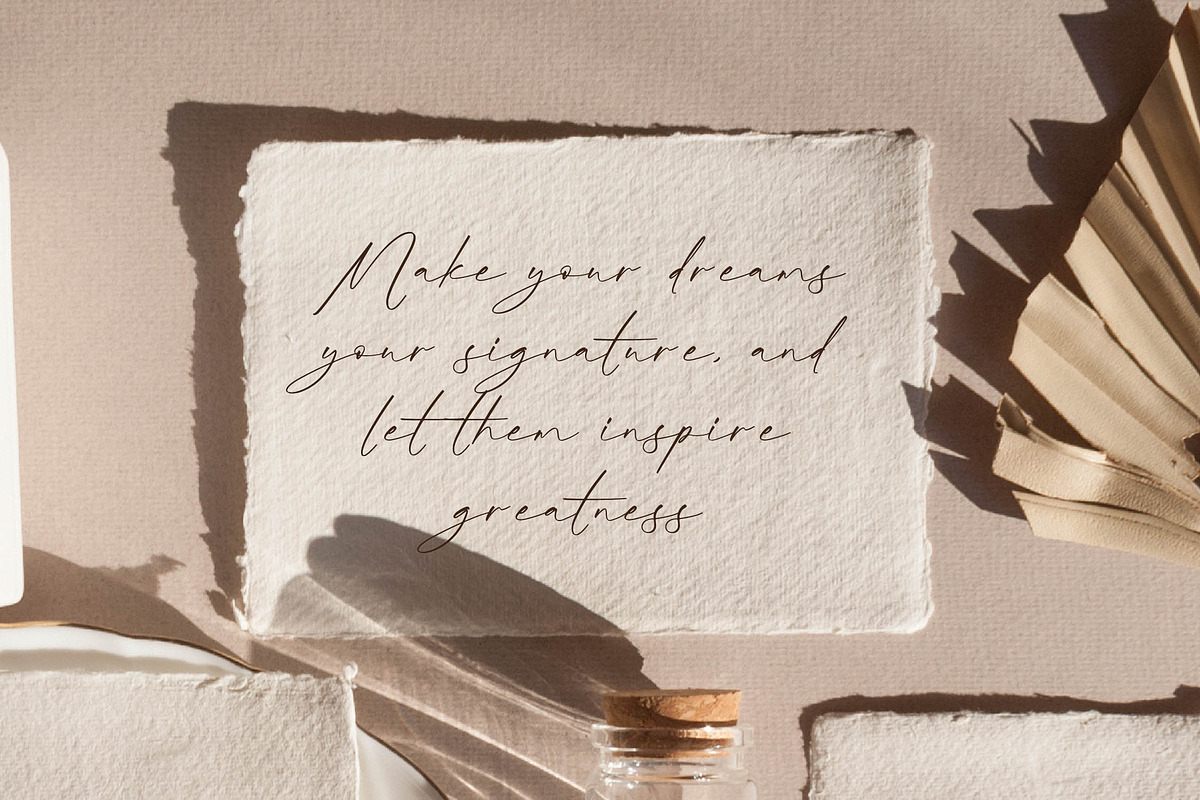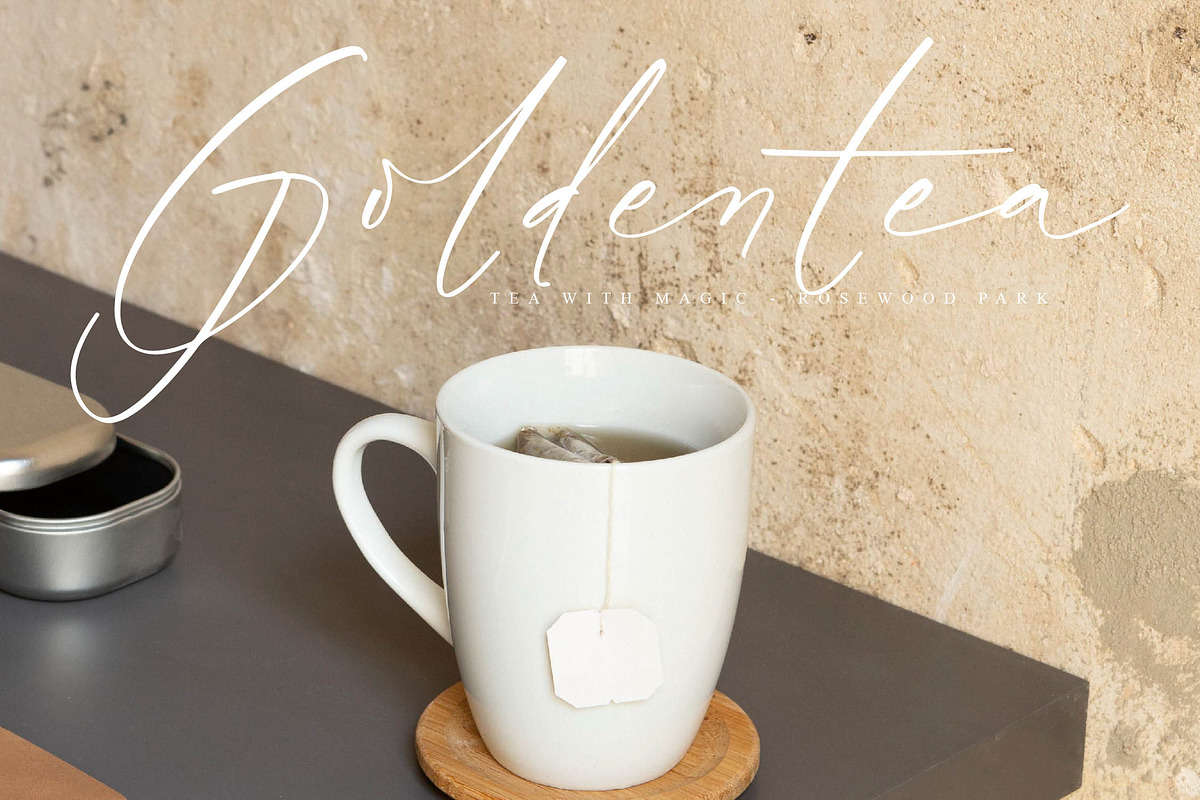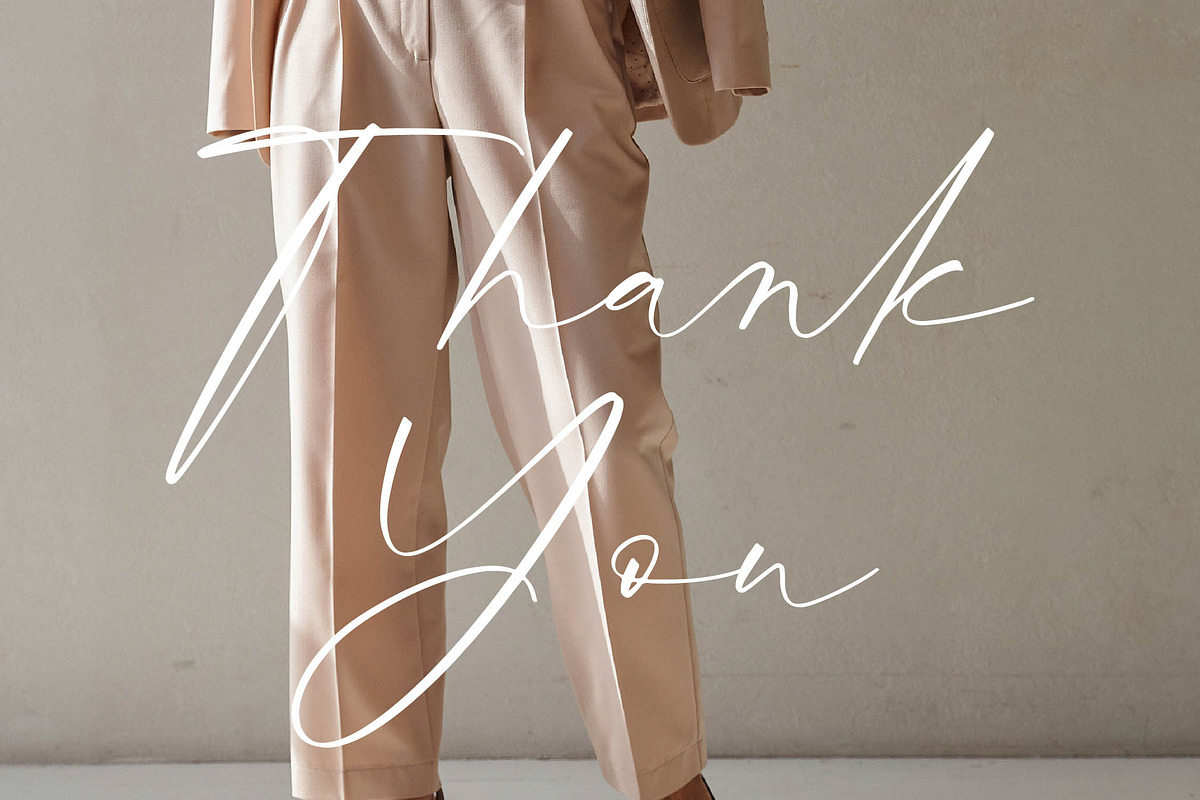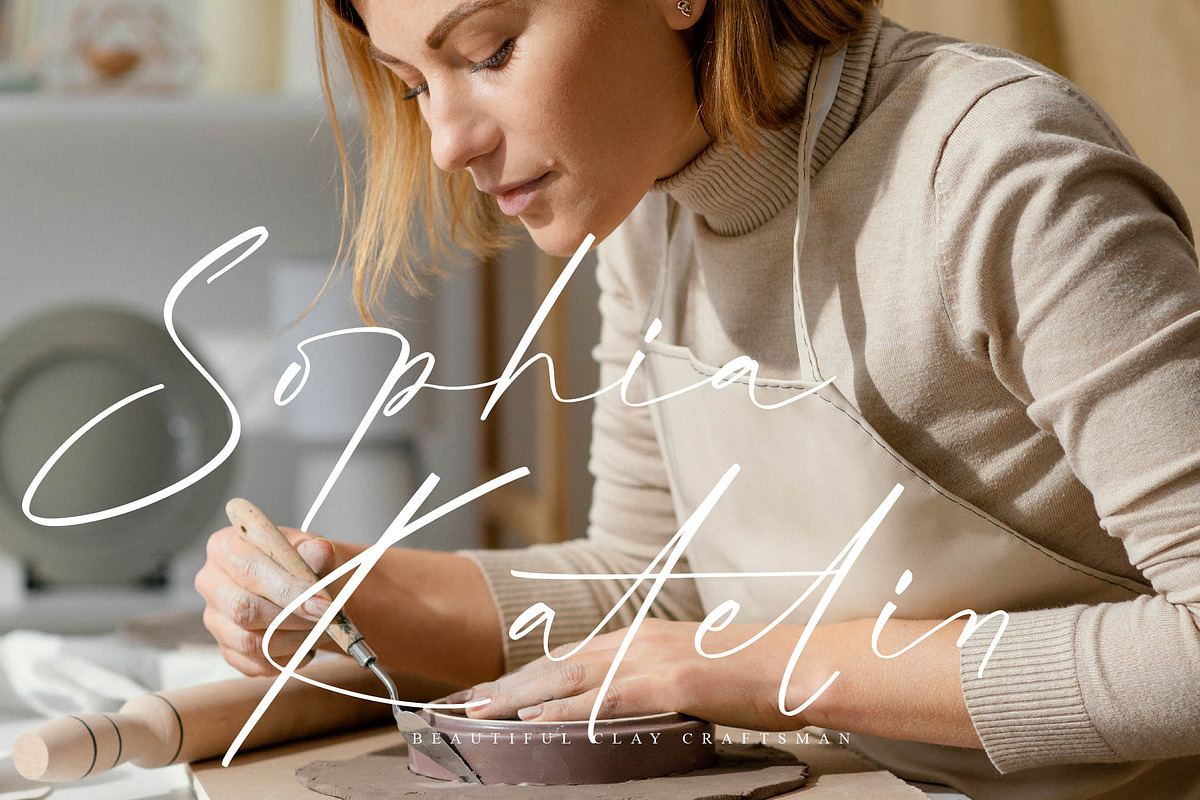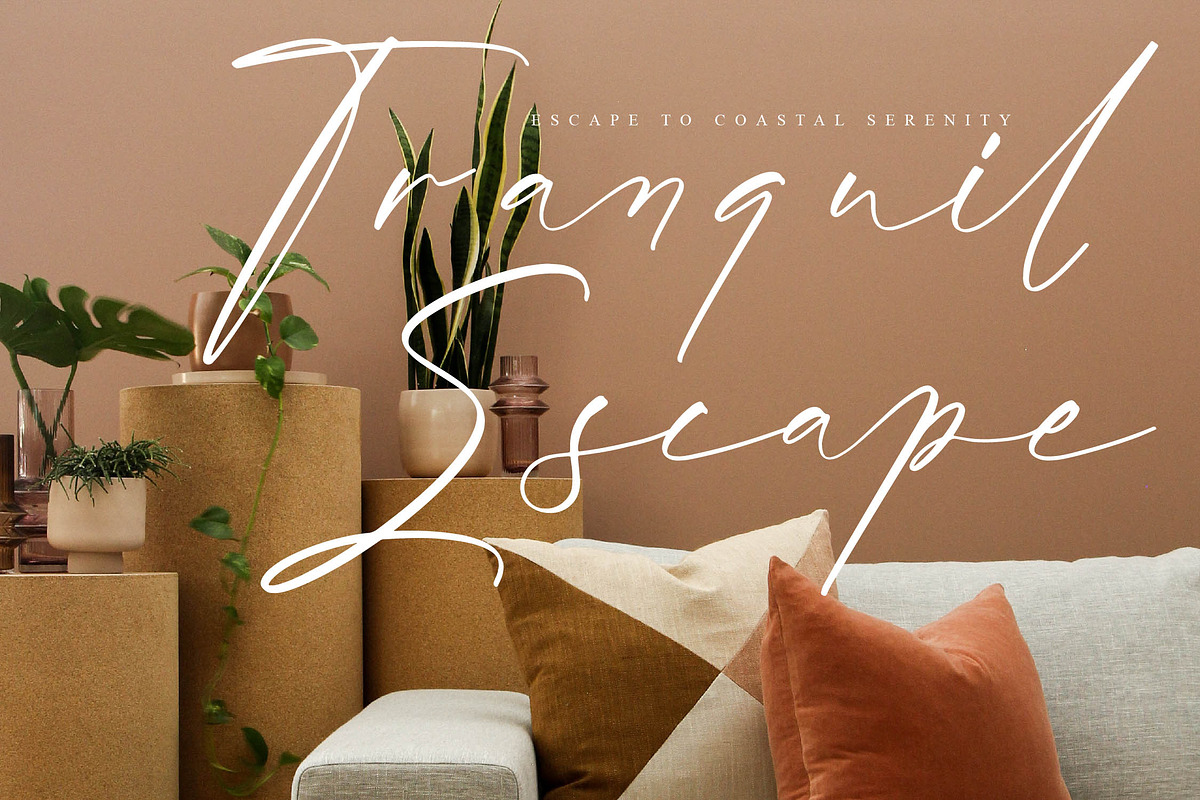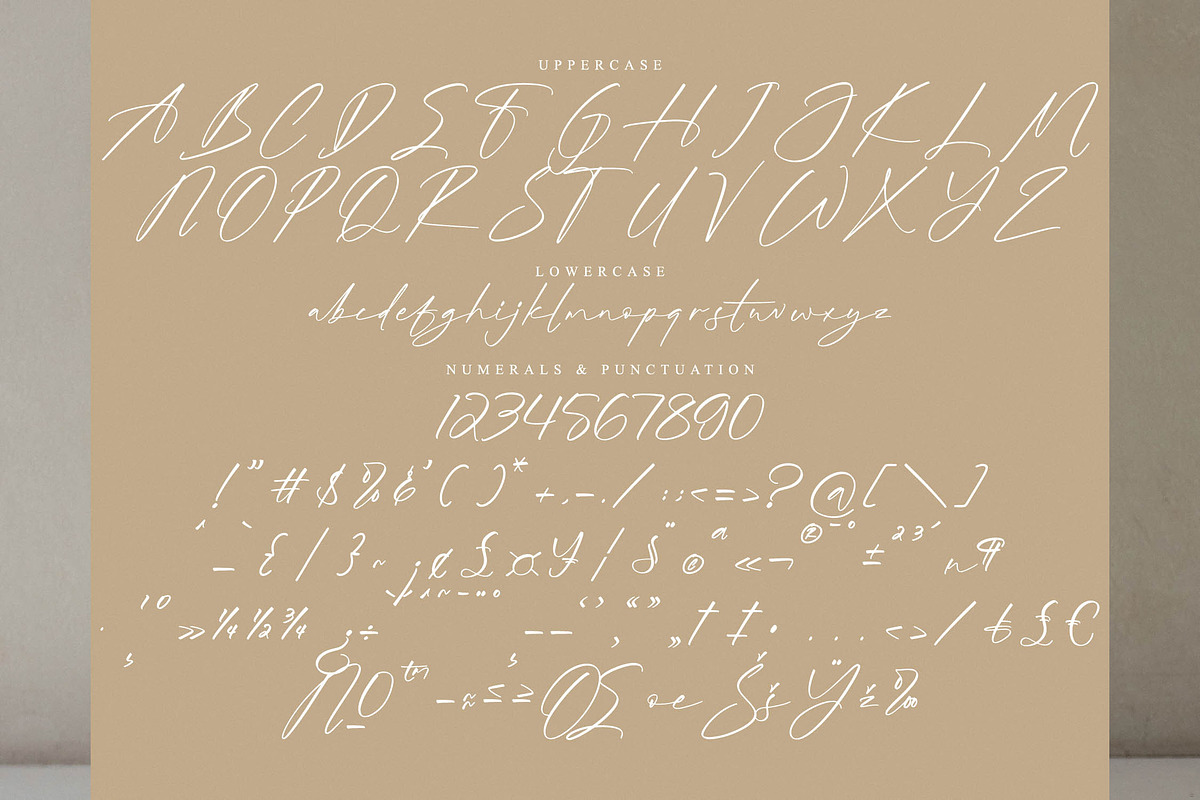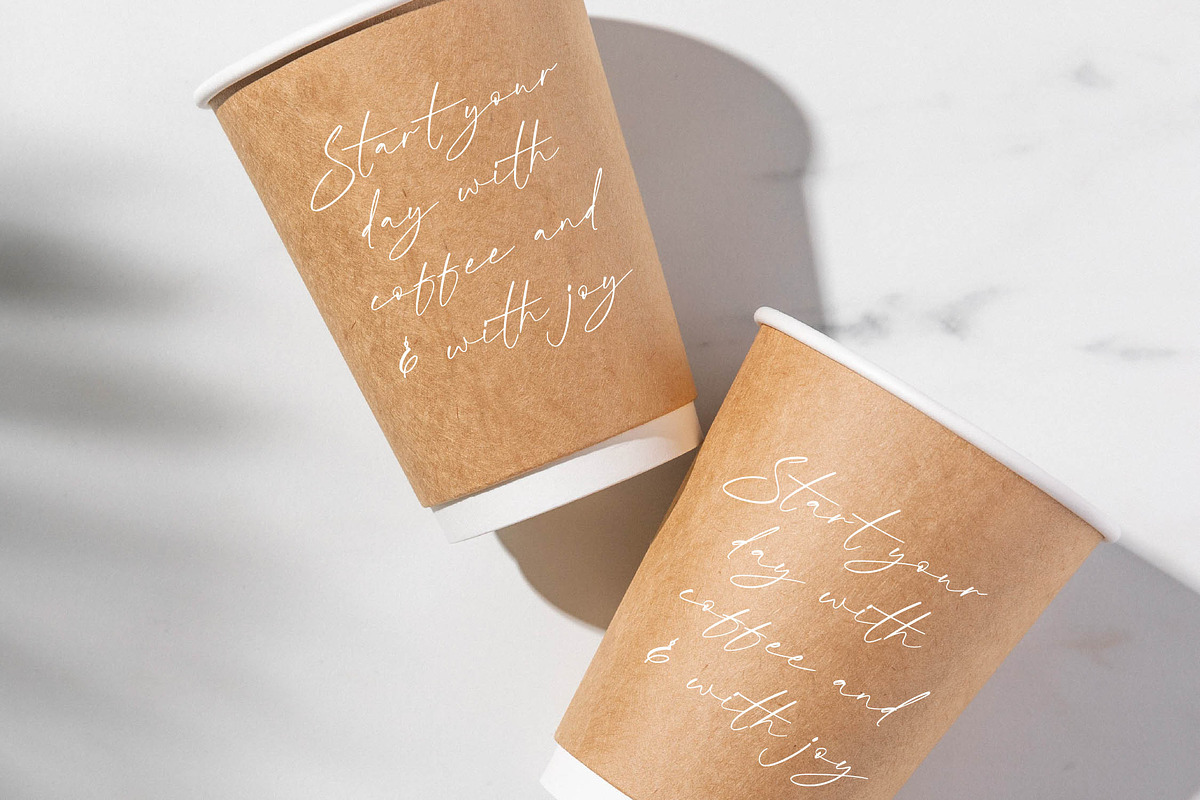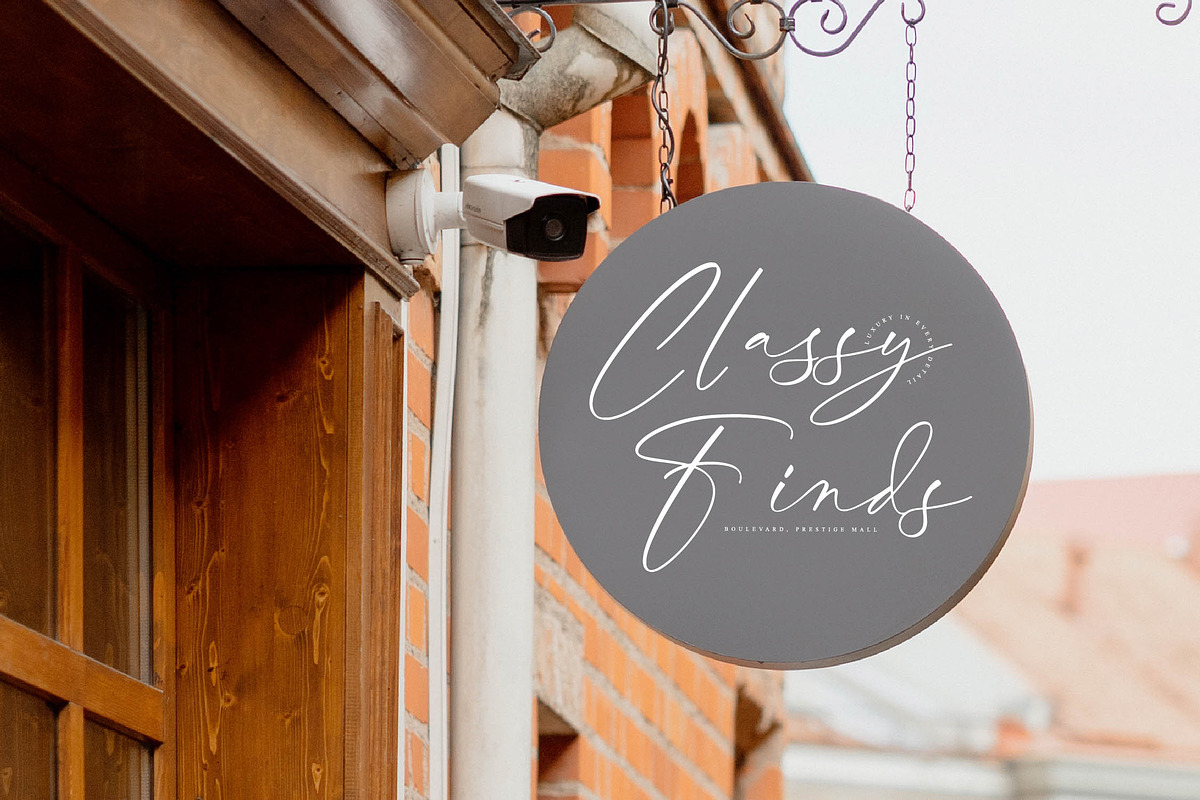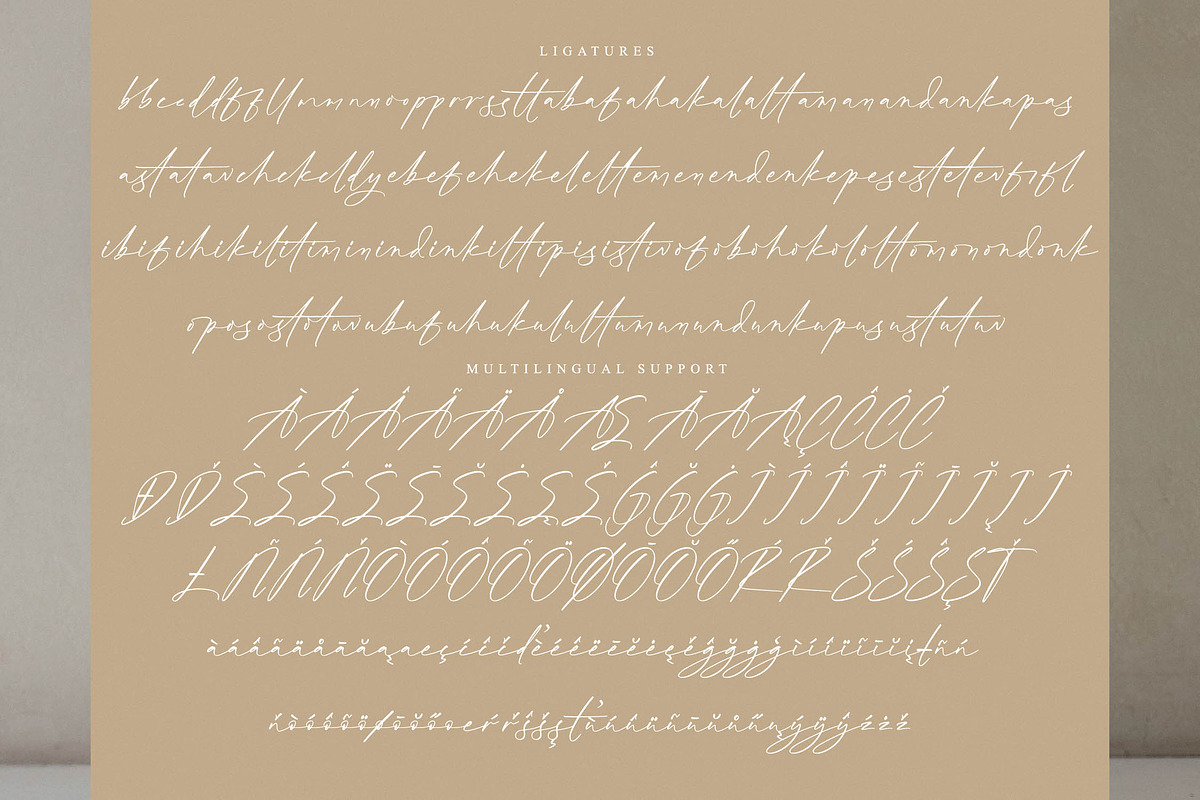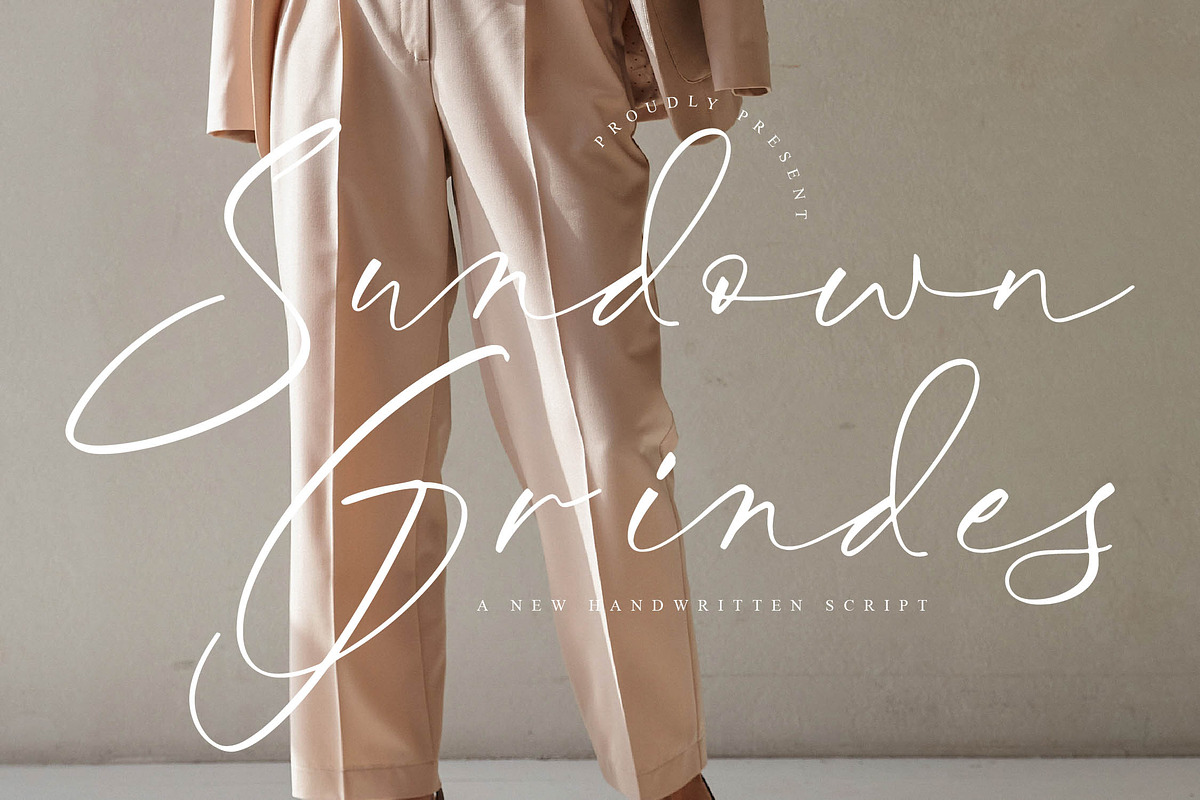
Sundown Grindes
Sundown Grindes - A New Handwritten, from Operatype.Co, perfect for any project like: logos, branding projects, homewares designs, product packaging, mugs, quotes, posters, shopping bags, t-shirts, covers books, business cards, invitation cards, greeting cards, labels, photography, watermarks, special events and all your other luxury projects that require a premium taste.
Ligatures, Alternate & Swashes